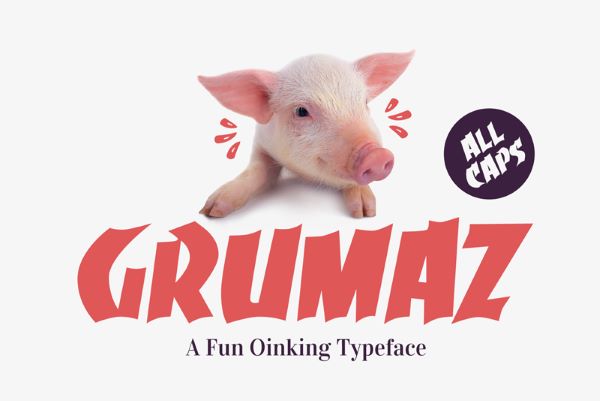
Grumaz Font
Grumaz font
Grumaz Font is a bold display typeface featuring strong letterforms and a distinctive modern style. It is suitable for logos, posters, branding, packaging, and headline typography that requires powerful visual presence. Its expressive structure and eye-catching personality help designs stand out, making it a creative and impactful option within modern and decorative free fonts collections.